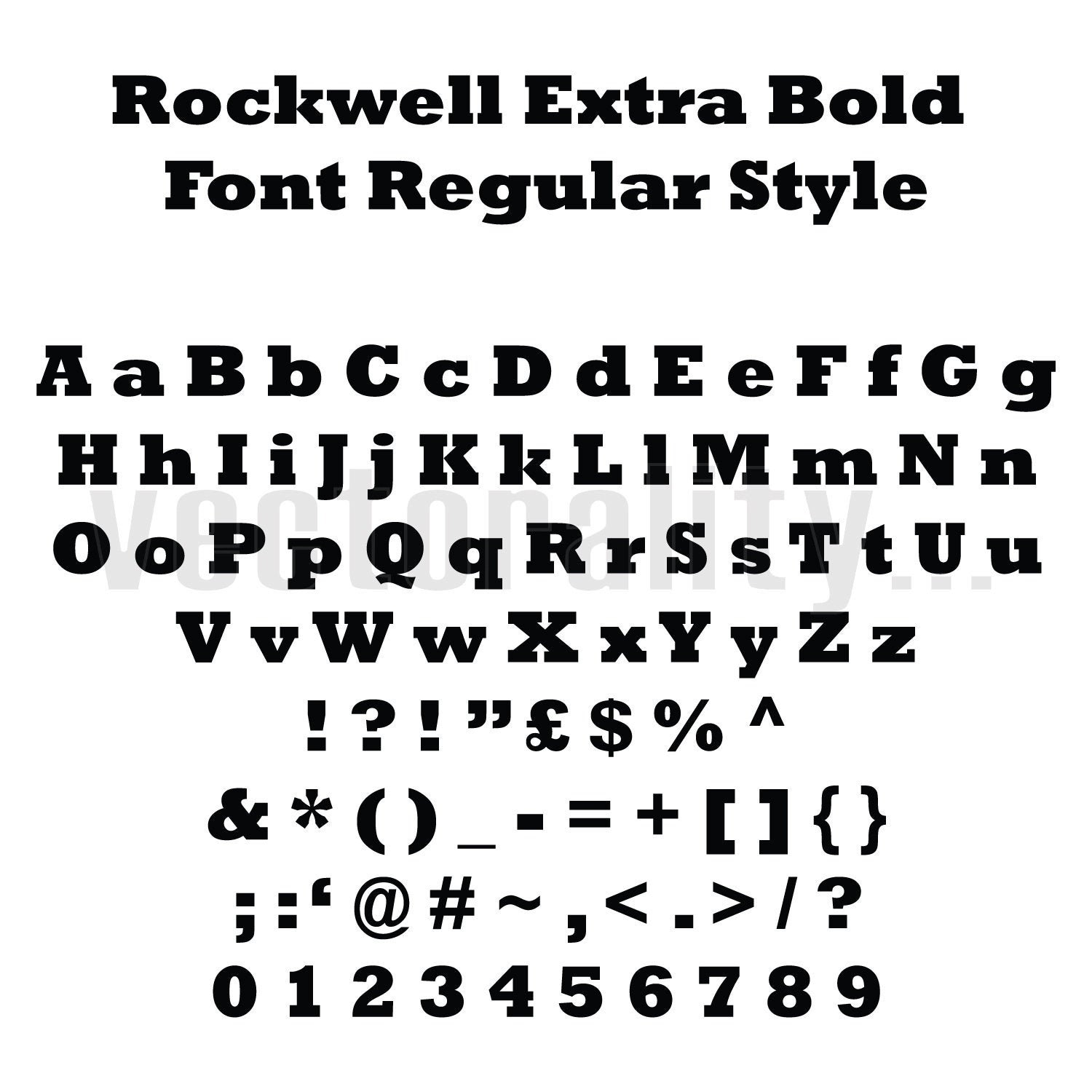
Rockwell Extra Bold Font
A great choice for highlighting your design elements. Rockwell is notable for its judiciously clipped slab serifs, and is given a particular sparkle by means of its angular. See font information, family, glyphs,. Installable on pc, mac, linux, ios, and android platforms. Discover the free rockwell extra bold font at free font download !
Discover the free rockwell extra bold font at free font download ! See font information, family, glyphs,. Installable on pc, mac, linux, ios, and android platforms. A great choice for highlighting your design elements. Download rockwell extra bold, a distinctive version of a geometric slab serif design, from fontyukle.
A great choice for highlighting your design elements. Rockwell extrabold font free download. Discover the free rockwell extra bold font at free font download ! See font information, family, glyphs,. Rockwell is notable for its judiciously clipped slab serifs, and is given a particular sparkle by means of its angular.
Rockwell Is Notable For Its Judiciously Clipped Slab Serifs, And Is Given A Particular Sparkle By Means Of Its Angular.